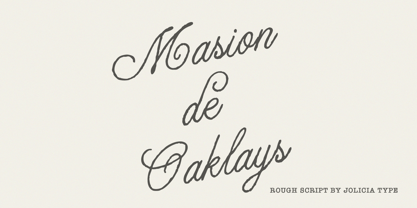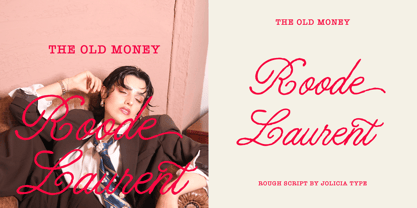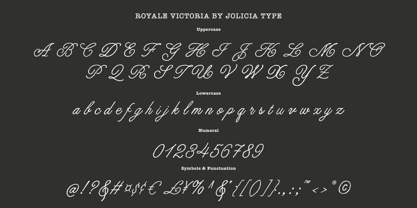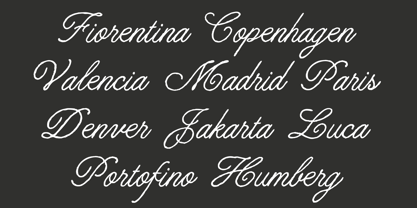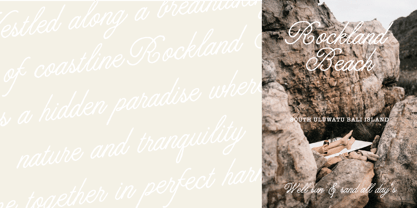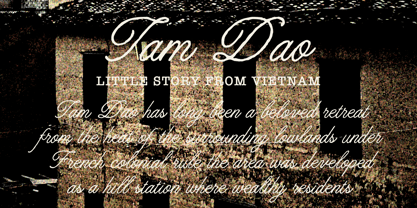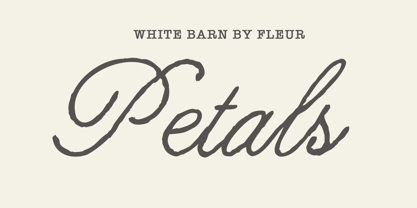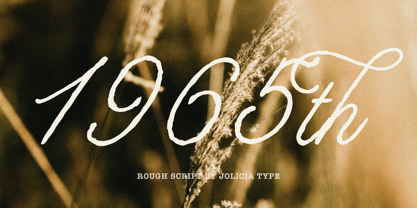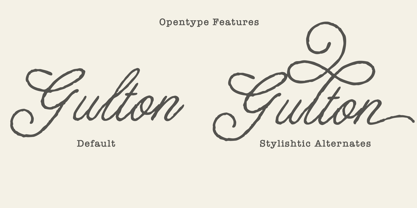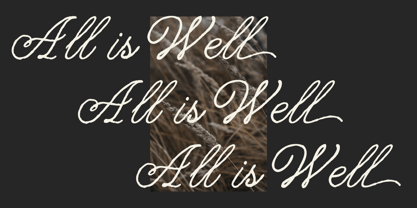
Royale Victoria
von Jolicia Type
Die Schriftfamilie Royale Victoria wurde von Laire Banyu entworfen und von Jolicia Type veröffentlicht. Royale Victoria enthält 1 Stile. Mehr über diese Familie
Royale Victoria is an expressive handwritten script font that beautifully captures the essence of authentic pen strokes, featuring a rough, textured finish. This typeface is designed to reflect the natural imperfections of hand lettering, delivering a raw yet elegant personality that feels both artistic and sophisticated. With its flowing curves, dynamic movement, and slightly rugged edges, Royale Victoria creates a distinctive handcrafted appearance, making every word feel personal and full of character. Inspired by vintage sign painting, classic calligraphy, and modern brush lettering, Royale Victoria strikes a perfect balance between refinement and spontaneity. The font showcases graceful connections, stylish swashes, and organic stroke variations that add depth and authenticity to any design. Whether used for branding, logos, packaging, editorial layouts, social media graphics, wedding stationery, or signature-style artwork, Royale Victoria leaves a memorable visual impact with its charming handcrafted appeal. Ideal for designers in search of a script font that combines elegance with attitude, Royale Victoria offers versatility across a wide range of creative projects. Its rough handwritten texture infuses warmth and personality, while its flowing letterforms ensure readability and sophistication. From luxury branding to rustic-inspired designs, Royale Victoria elevates ordinary typography into expressive works of art.